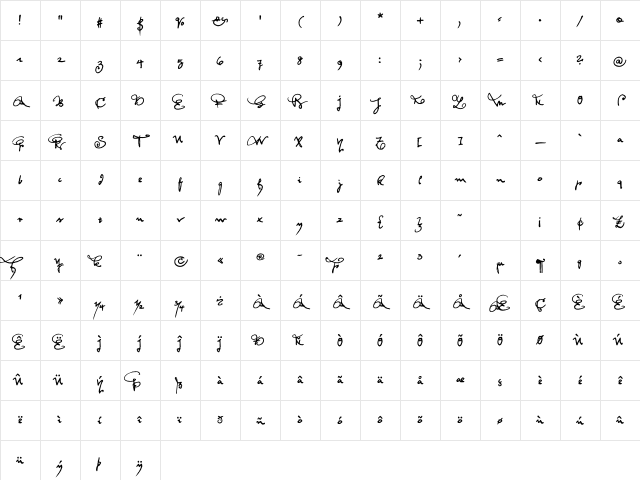
Feltrinelli Regular
Design Context for Feltrinelli
Feltrinelli is a composed and adaptable typeface that performs quietly and consistently across a wide range of design contexts.